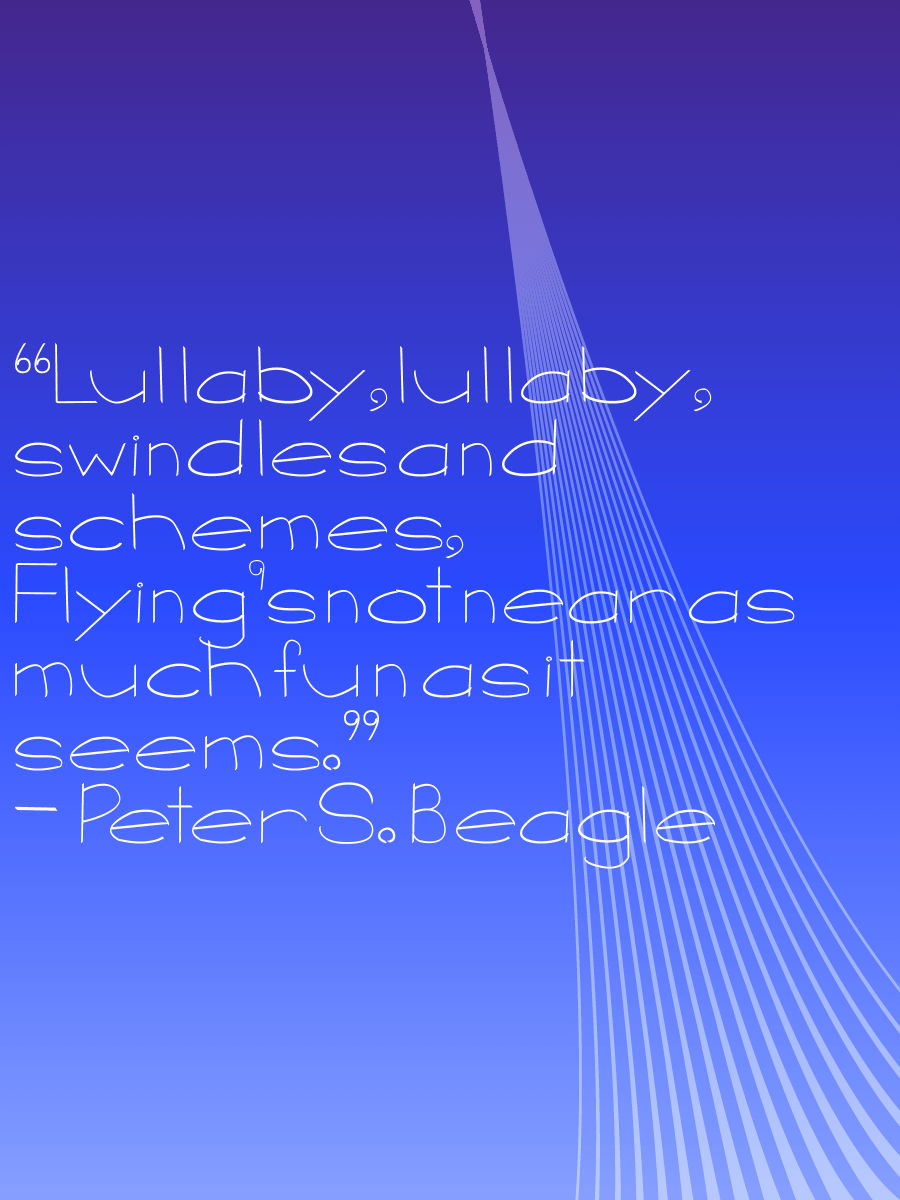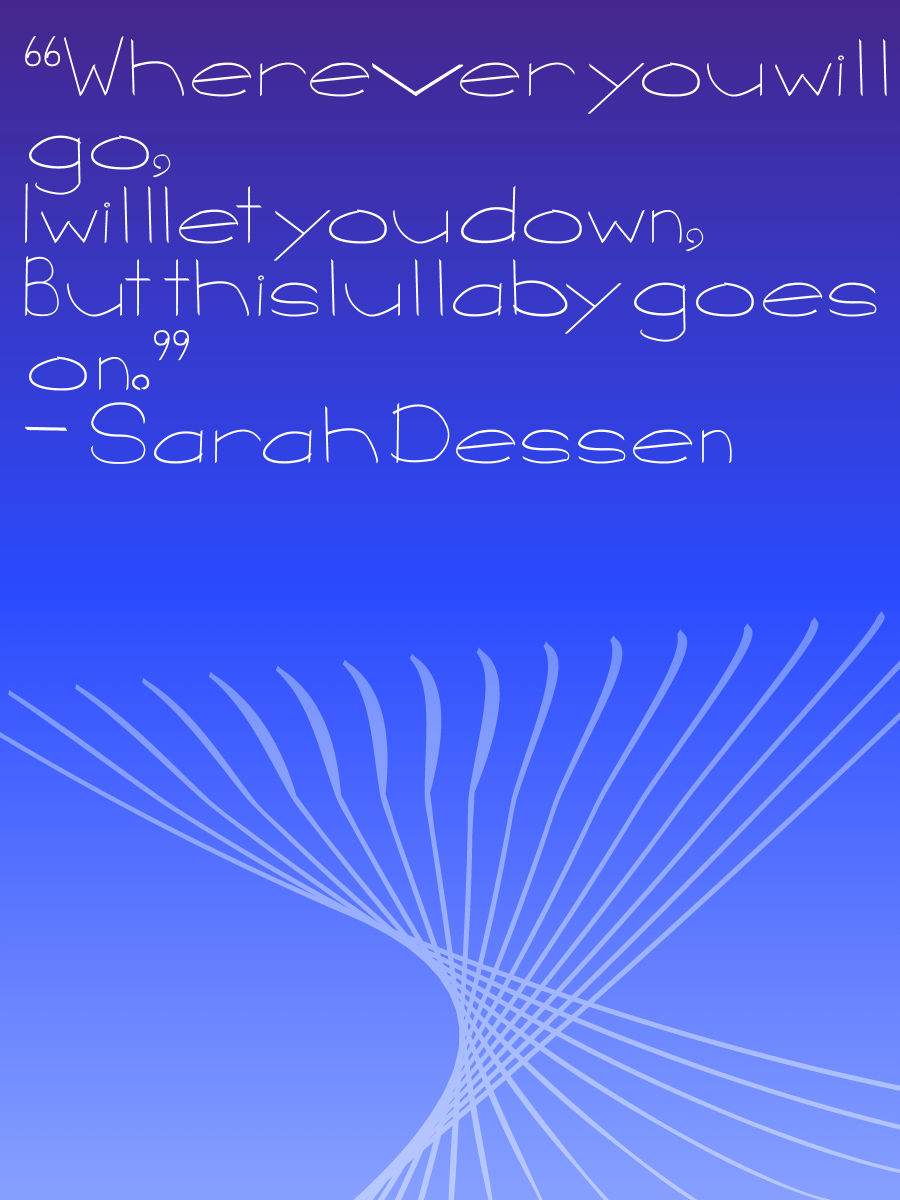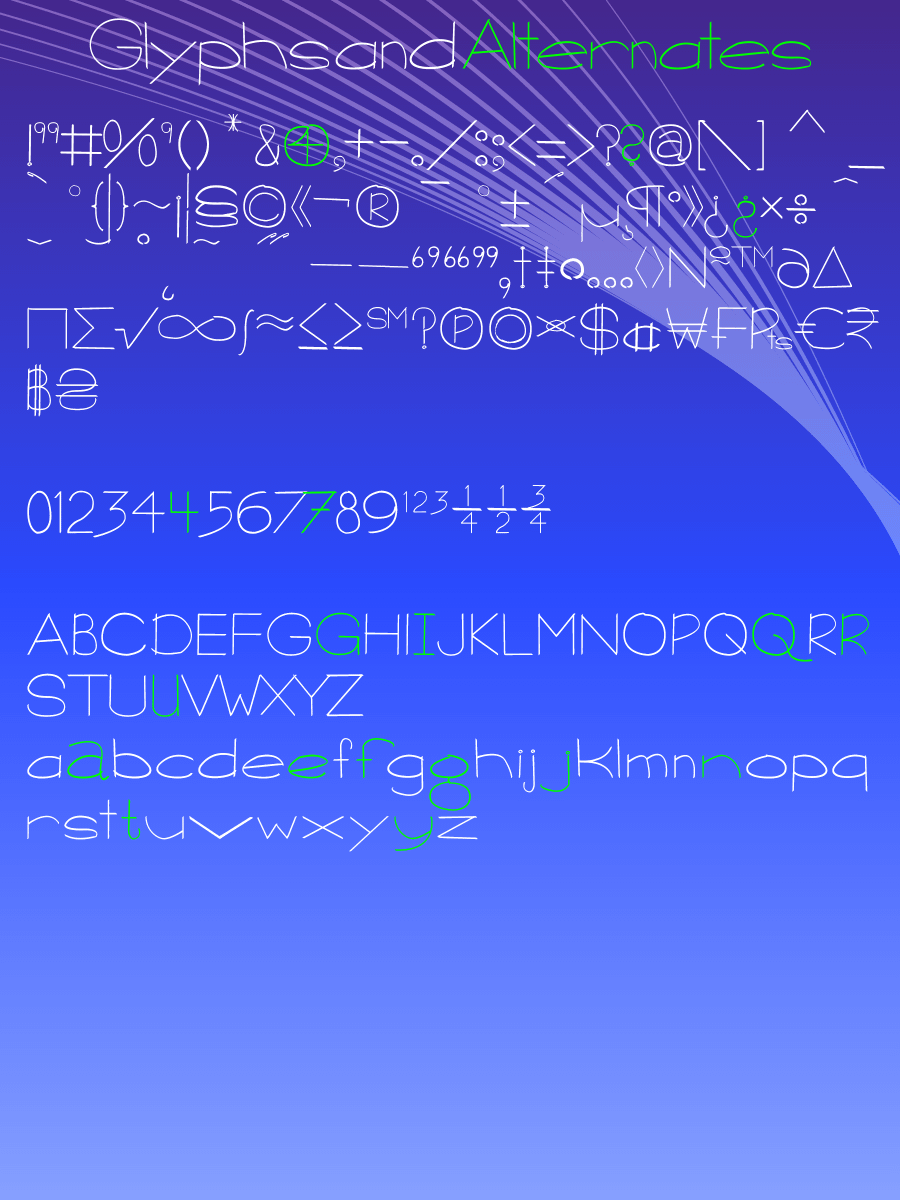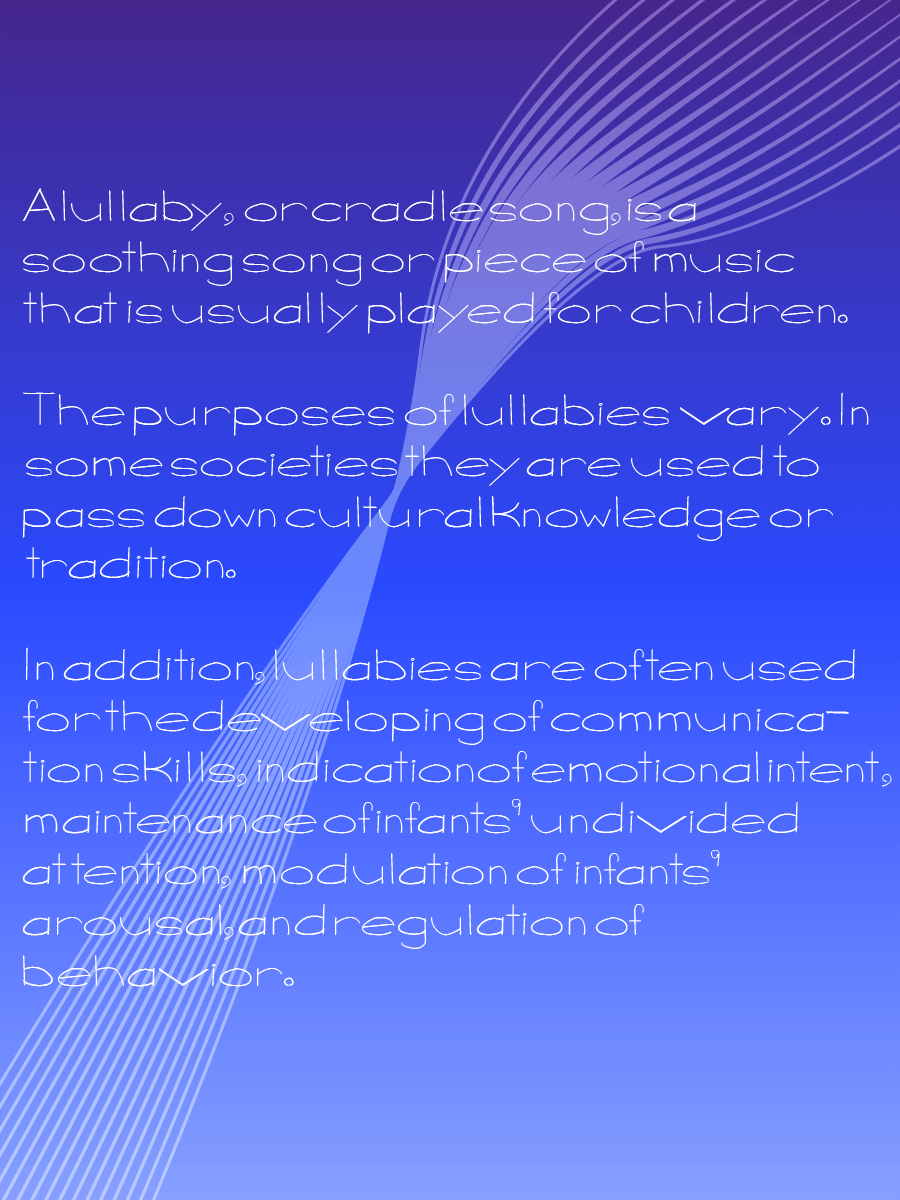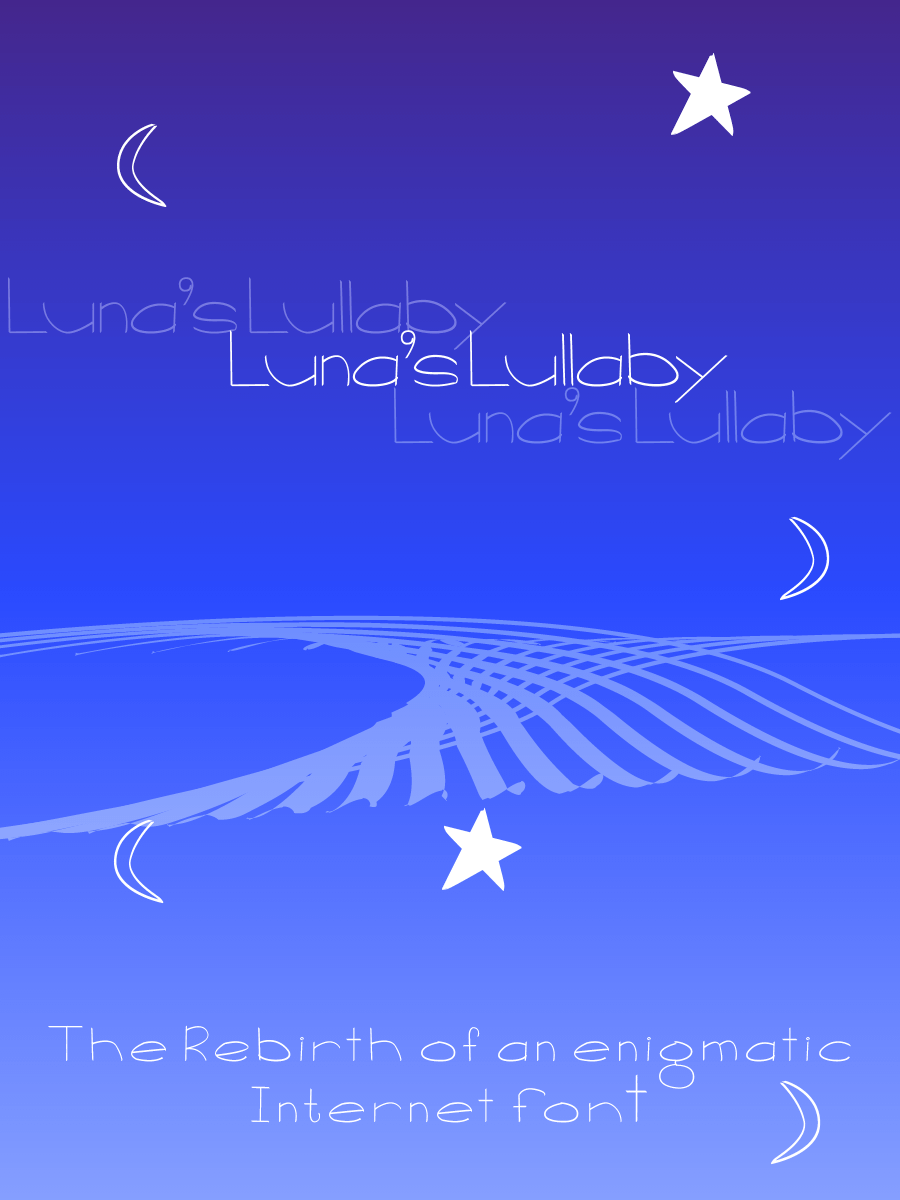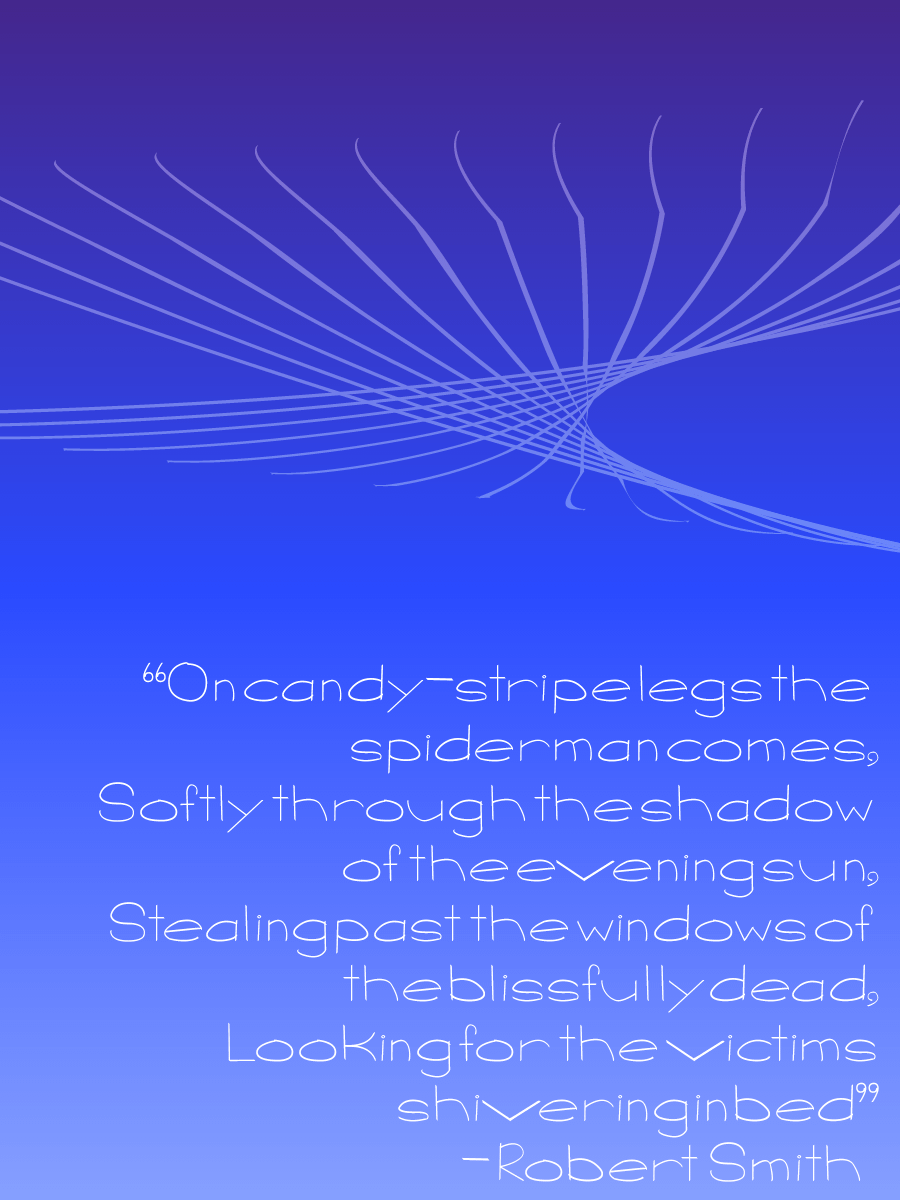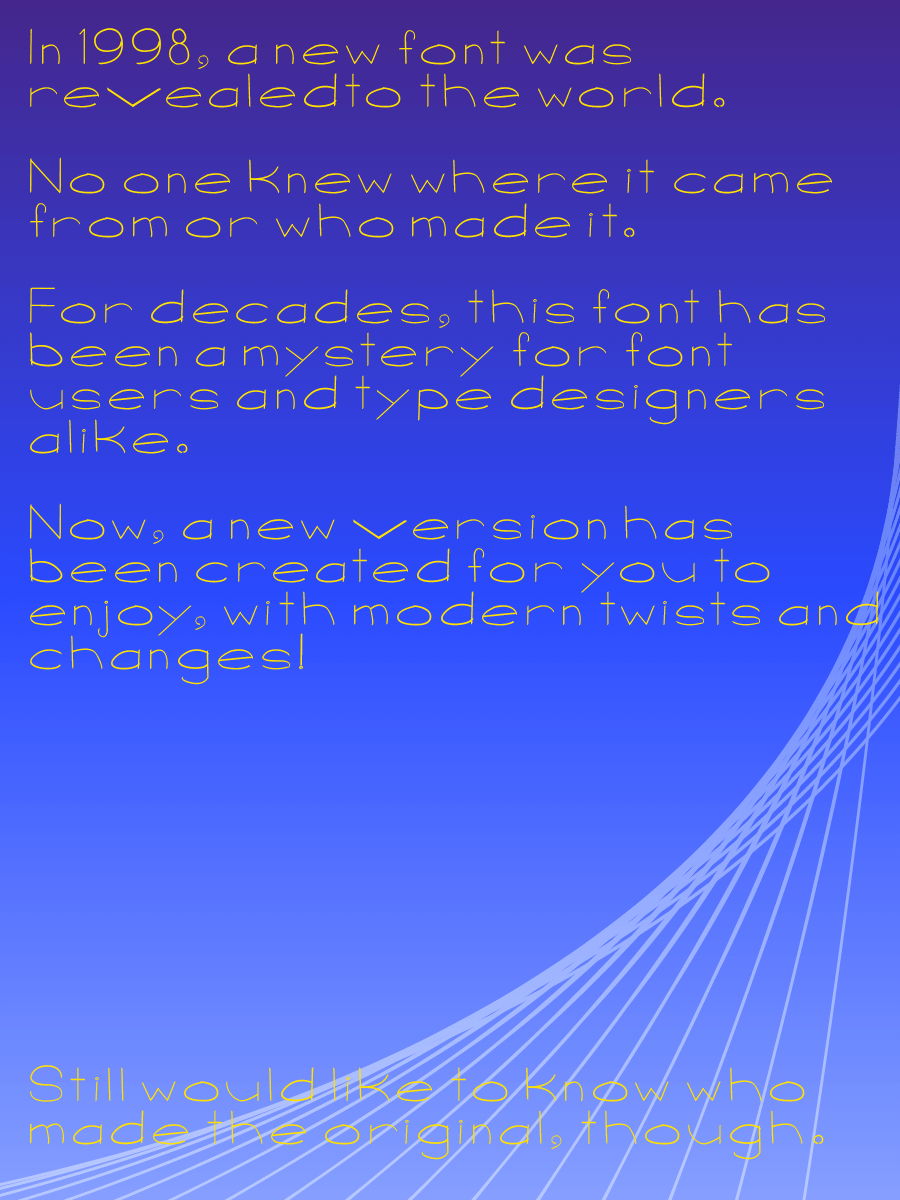
Luna's Lullaby font
Inspired by one of the very first script fonts out there, Luna’s Lullaby is a gentle, soft, feminine font meant to be used in a number of sweet settings. Designed with a brush style in mind, it evokes the original font while being an entirely new entity of its own.
Now complete with capitals, numbers, and various others that the original version did not have, Luna’s Lullaby is sure to work its way into your heart.